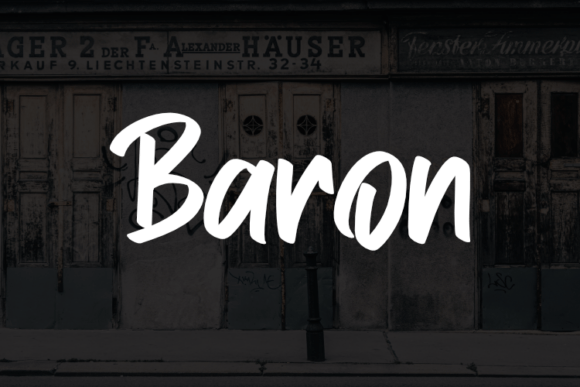
Introducing Baron Font: Elevate Your Designs with Style and Sophistication
In the world of design, fonts play a crucial role in conveying the message and aesthetic of a project. Whether you’re a professional designer or a crafty DIY enthusiast, having the right font can make all the difference. This is where Baron Font comes in – a versatile and stylish addition to your design arsenal that’s perfect for a wide range of applications, from apparel and t-shirts to product embellishments and more.
The Versatility of Baron Font
Baron Font is designed to be adaptable and easy to use, making it an excellent choice for creatives of all levels. Its clean and elegant design ensures that it can be applied to various projects without losing its charm. Whether you’re working on a casual t-shirt design or a more sophisticated branding project, Baron Font is up to the task.
Why Choose Baron Font?
So, what makes Baron Font an excellent choice for your design needs? Here are a few reasons:
- Versatility: Baron Font can be used for a wide range of projects, from casual apparel to more sophisticated branding and marketing materials.
- Sophistication: The font’s clean and elegant design adds a touch of sophistication and charm to any project.
Applications of Baron Font
Baron Font is perfect for a variety of design applications, including:
- Apparel Design: Add a stylish flair to t-shirts, hoodies, and other clothing items.
- Product Embellishments: Use Baron Font to create eye-catching designs for product labels, packaging, and more.
- Branding and Marketing: Elevate your brand’s visual identity with a sophisticated and elegant font.
Tips for Using Baron Font
To get the most out of Baron Font, here are a few tips:
- Experiment with Sizes and Colors: Play around with different sizes and colors to find the perfect combination for your project.
- Pair it with Other Fonts: Baron Font works well with other fonts, so don’t be afraid to experiment with different pairings.
- Use it Consistently: Use Baron Font consistently across your designs to create a cohesive brand identity.
Baron Font is a versatile and stylish addition to any design arsenal. Its ease of use, compatibility with all design software, and sophisticated design make it an excellent choice for creatives of all levels. Whether you’re working on apparel, product embellishments, or branding and marketing materials, Baron Font is sure to elevate your designs to the next level. Make Baron Font your go-to font for all your design needs and experience the difference it can make.